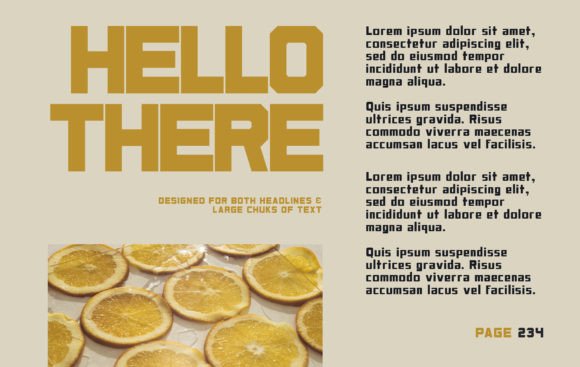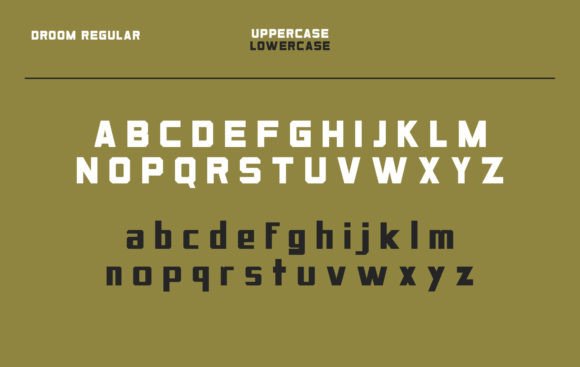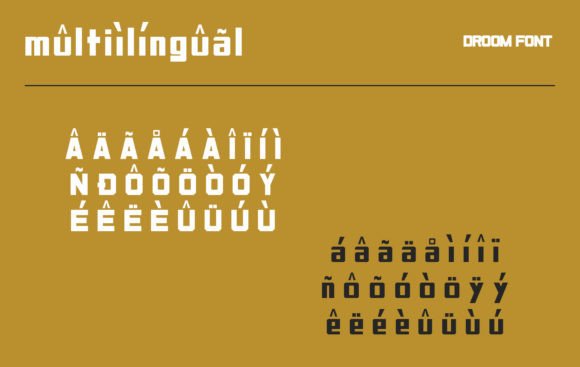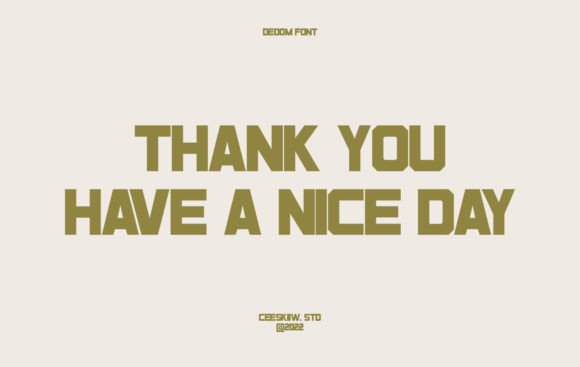
The Ultimate Design Game-Changer: Unleashing the Power of Droom Font
So, what makes Droom Font so special? Let’s dive into the good stuff!
- ✨ Modern and bold: Droom Font is the perfect blend of modernity and boldness, making it perfect for headlines, titles, and statements.
- ✅ Versatile: Whether you’re designing a logo, a poster, or a social media graphic, Droom Font adapts seamlessly to any topic or style.
- 💥 Attention-grabber: This font is designed to make a statement, and it does so with flair!
Now, no font is perfect, and Droom Font has a few minor quirks:
- 🤔 Limited legibility at small sizes: While Droom Font shines at larger sizes, it can become a bit tricky to read at smaller sizes. Keep this in mind for body text or captions.
- ⚠️ Not ideal for long-form text: Due to its bold nature, Droom Font is best used for short, impactful text rather than lengthy paragraphs.
Exploring Alternatives: Similar Fonts to Droom
If you’re looking for more font options with a similar vibe, here are some alternatives:
- Montserrat: A sleek, urban font perfect for modern designs and corporate branding.
- Raleway: An elegant, refined font ideal for luxury brands, magazines, or high-end designs.
- Arial Black: A classic, bold font great for headlines and titles, with a slightly more traditional feel.
- Impact: A strong, condensed font suitable for bold statements and attention-grabbing designs.
The Story Behind Droom Font: Designer Inspiration
While the actual story behind Droom Font’s creation is scarce, it’s easy to imagine that the designer aimed to craft a font that’s both modern and bold, with a dash of edginess. Perhaps they were inspired by the urban landscape, the world of fashion, or the realm of cutting-edge technology. Whatever the motivation, Droom Font has undoubtedly become a design favorite among creatives.
| What makes Droom Font suitable for modern designs? | Droom Font’s modern and bold aesthetic, combined with its versatility, makes it an excellent choice for contemporary designs. |
| Can I use Droom Font for body text? | While possible, Droom Font is best used for short, impactful text. Its bold nature may make longer paragraphs difficult to read. |
| Is Droom Font suitable for print and digital designs? | Absolutely! Droom Font’s clarity and legibility make it suitable for both print and digital applications. |